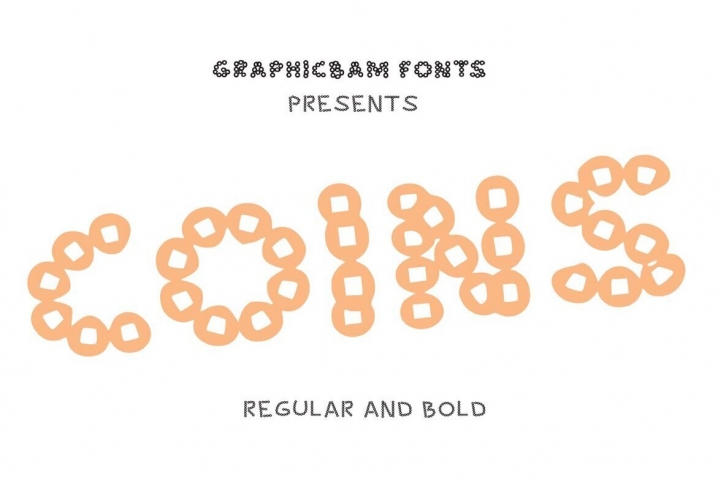
Coins is a cool looking display font, with characters made out of small circles. Whether you use it for cartoon related designs, children games or just any creation that requires a lovely touch, this font will be an amazing choice.